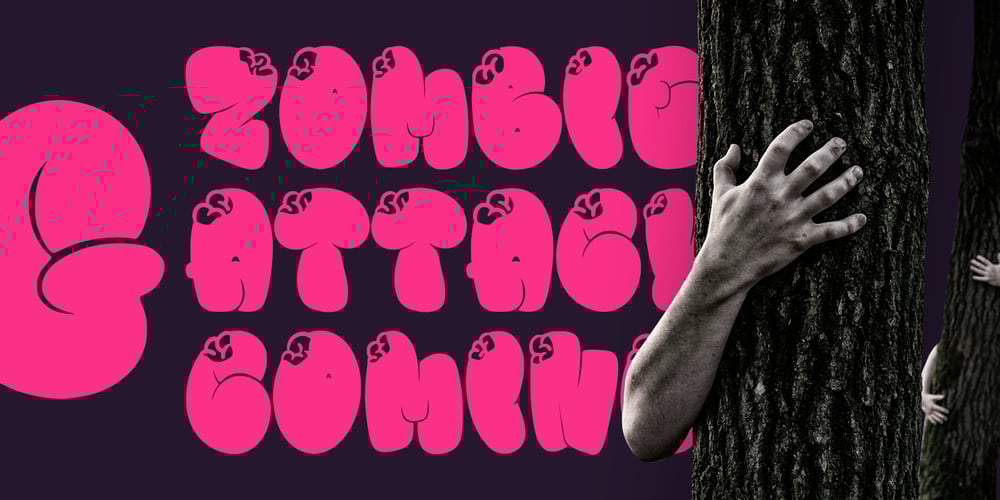
MC Braseh Font Family was designed by Gilang Maulana and published by Maulana Creative. MC Braseh contains 1 styles and family package options. Braseh decorative graffiti display font. Bold stroke and fun character. To give you an extra creative work Braseh decorative graffiti display font support multilingual language. This font is good for logo design, Social media, Movie Titles, Books Titles, a short text even a long text letter and good for your secondary text font with script or serif. Make a stunning work with Braseh decorative graffiti display font.Cheers,Maulana Creative